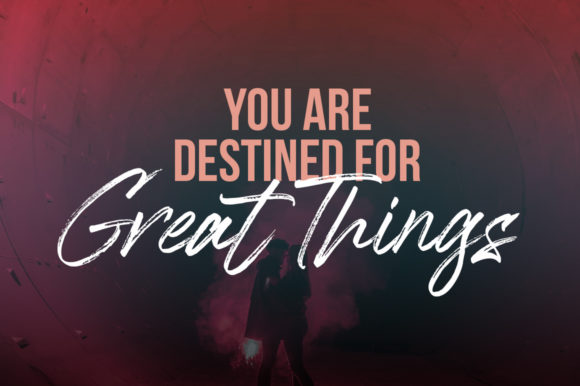
Black Dragon Font
db-ku.com - Script & Handwritten -- Black Dragon is a beautiful and dramatic handwritten font, created with the help of a brush pen. Its unique flow and bold style will make each of your designs stand out!